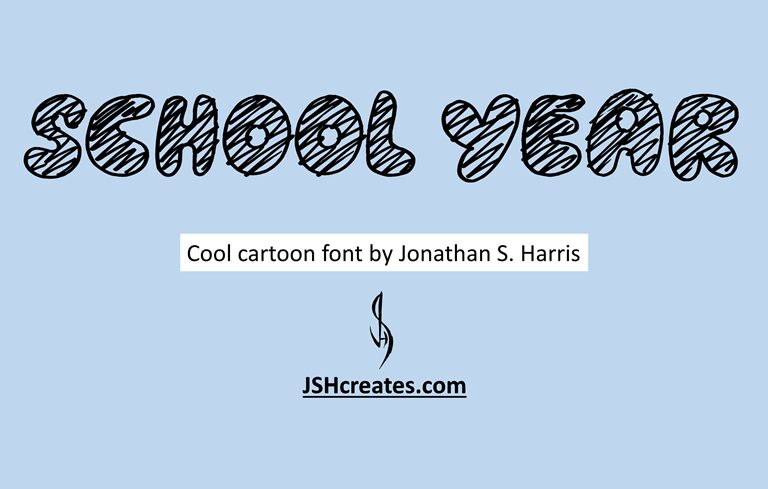
School Year, a bold cartoon display font designed by Jonathan S Harris is perfect for fun and creative projects. With its playful style, it's suitable for kid-friendly designs, logo designs, banner ads, posters and more.